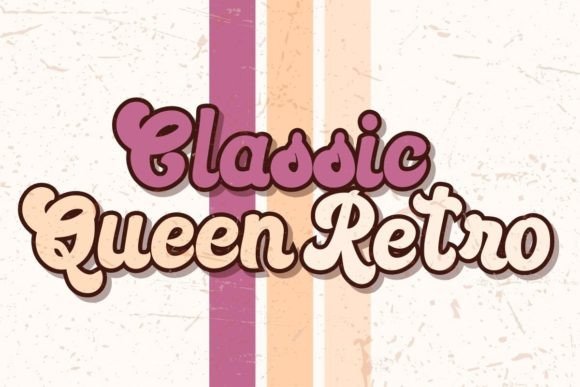
Dive into the realm of eloquence with Classic Queen Retro, an enthralling script font that captures the essence of elegance and nostalgia. This enchanting font, brought to you by the gifted designer charmingbear59.design, is a harmonious union of display fonts and handwritten fonts, meticulously crafted to transport you back in time.
With its bold strokes and delicate curves, Classic Queen Retro effortlessly strikes a balance between audacity and grace. Experience the charm of a bygone era as you explore the versatility of this font, seamlessly blending the best of both worlds. Whether you seek to craft heartfelt invitations, evoke vintage charm in your designs, or add a touch of sophistication to your projects, Classic Queen Retro is your steadfast companion.
Step into the realm of royalty and sophistication as you unleash your creativity with Classic Queen Retro. Let the timeless beauty of this font elevate your designs, leaving an unforgettable impression on all who behold it. Join the ranks of those who appreciate the finer things in life and embrace the elegance that Classic Queen Retro exudes.
Indulge in the allure of nostalgia as you journey through the ages with Classic Queen Retro. This font invites you to explore the depths of your imagination and create designs that tell timeless tales. Its undeniable charm will captivate audiences, leaving them spellbound by its exquisite beauty. Embrace the allure of the past and let Classic Queen Retro be the key to unlocking your creative destiny.